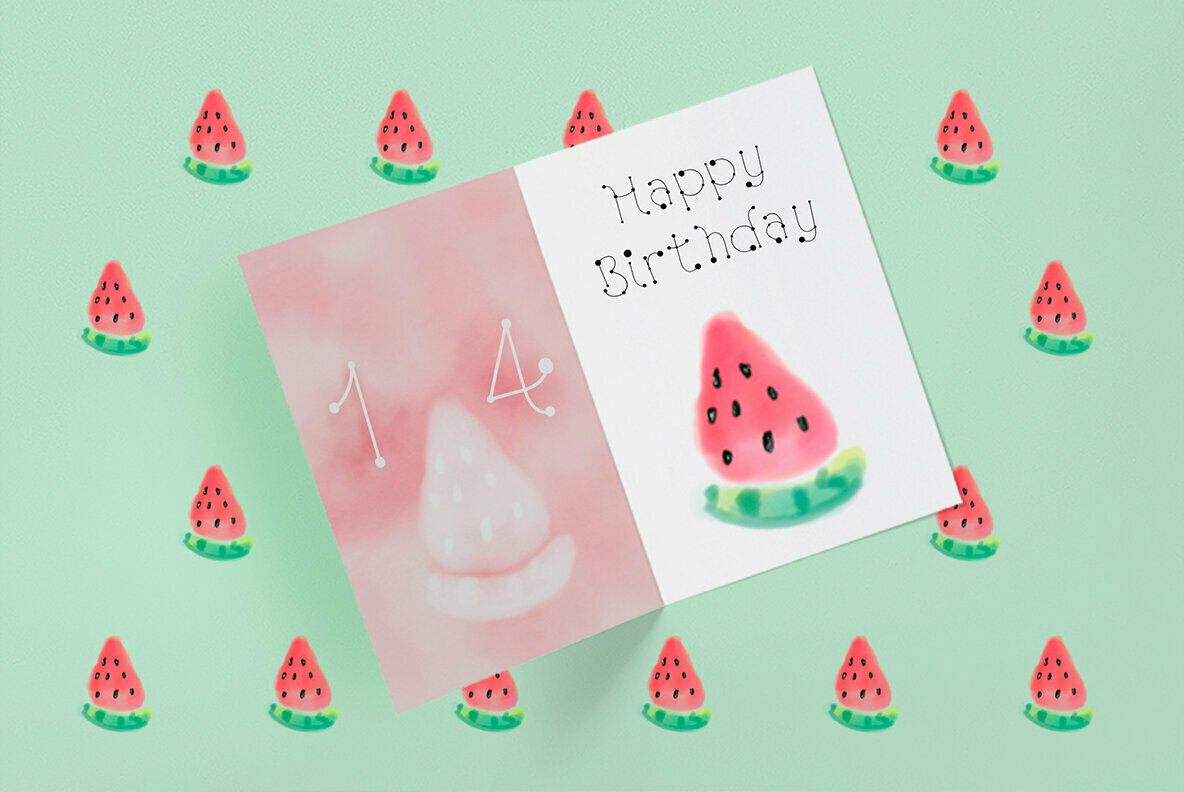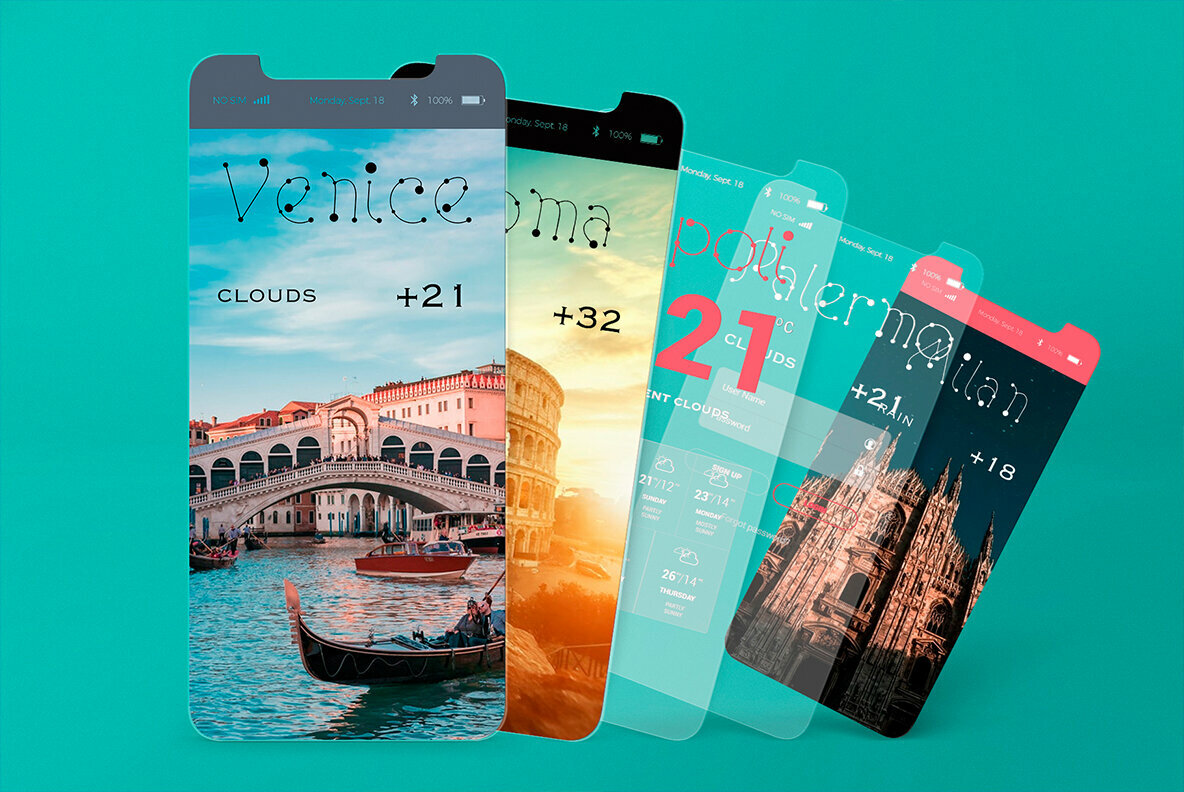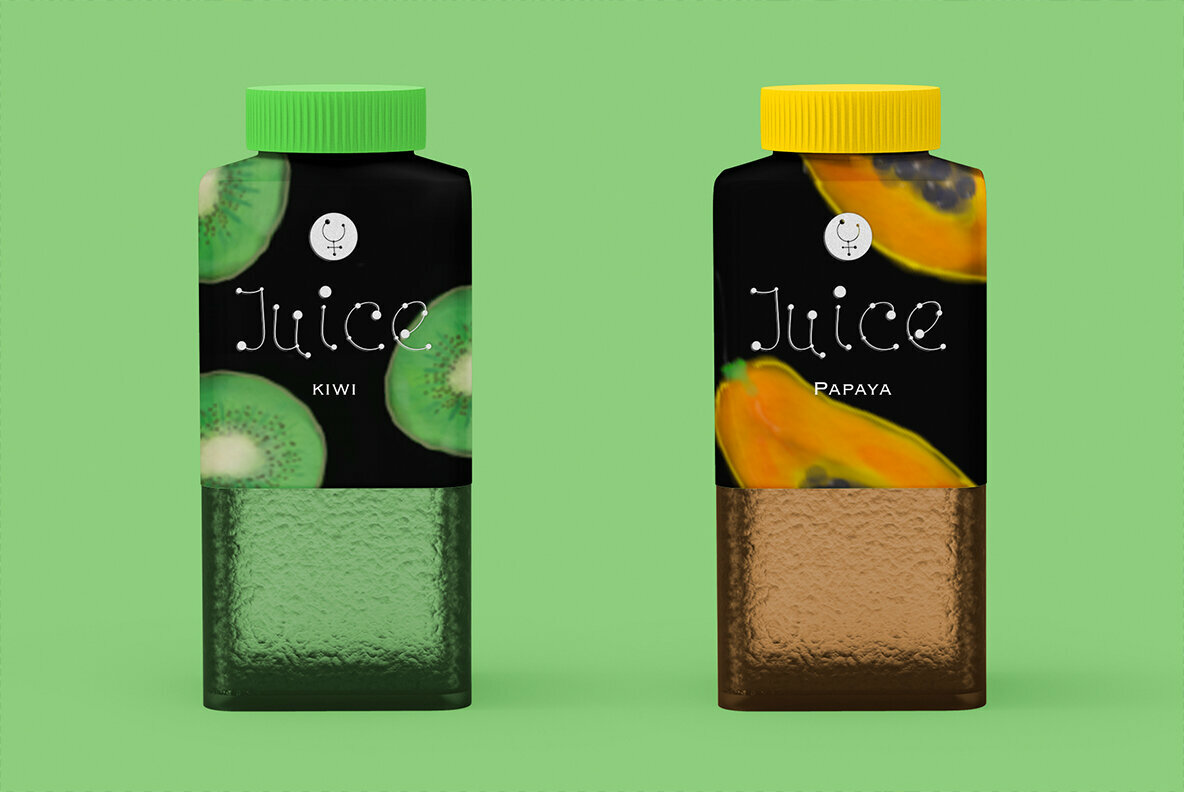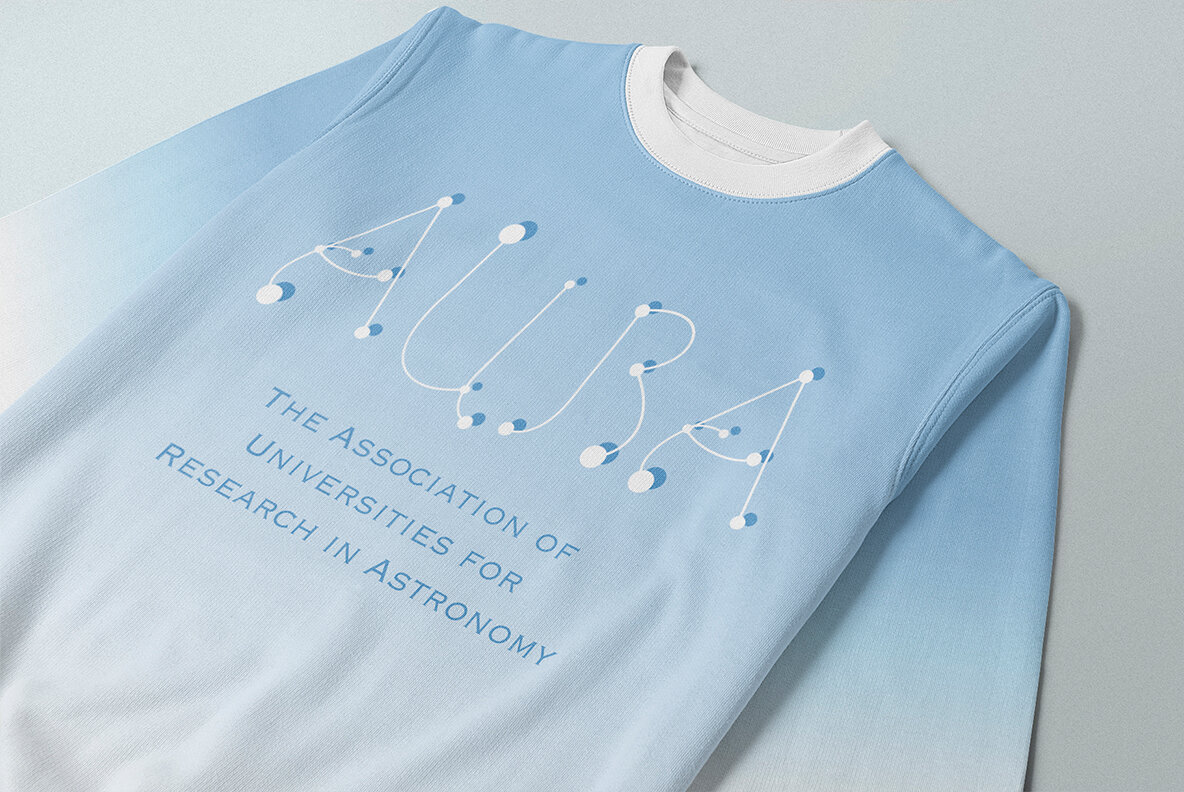
Alex Calder Font
Inspired by the innovative spirit of Alexander Calder, Alex Calder brings a unique flair to typography. Known for his kinetic sculptures, Calder's legacy infuses this typeface with a sense of motion and creativity, suitable for a multitude of design projects. The font set includes Calder regular and Calder dots, offering versatility and distinctive aesthetics for graphic designers and creative directors.Alex Calder: A Tribute to Artistic Kinetics